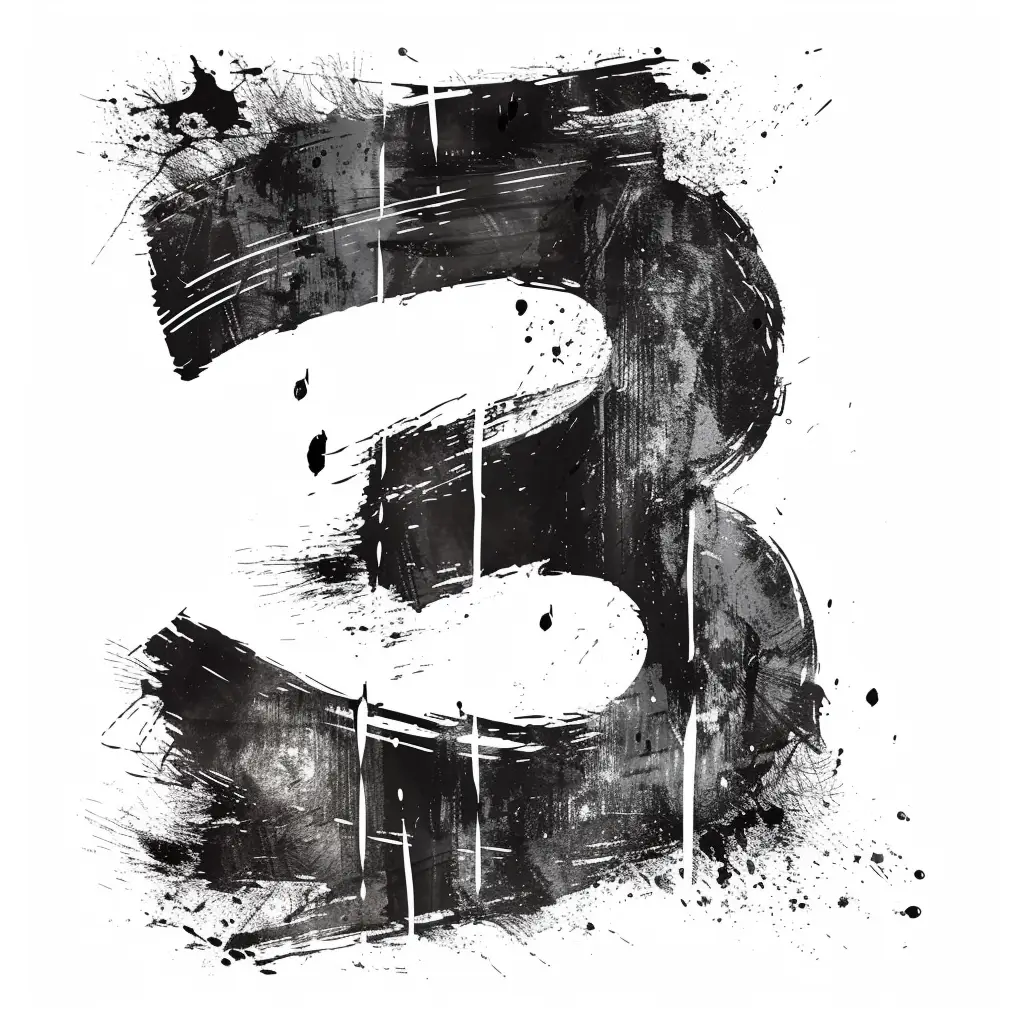
The image features a stylized, abstract representation of the number "3," rendered in a bold, expressive brushstroke style. It uses a monochromatic black-and-white palette, with textured, splattered ink effects and drips that create a dynamic, artistic feel. The composition emphasizes contrast between the dark, textured strokes and the lighter, more defined areas of the number, giving it a raw, hand-painted aesthetic.